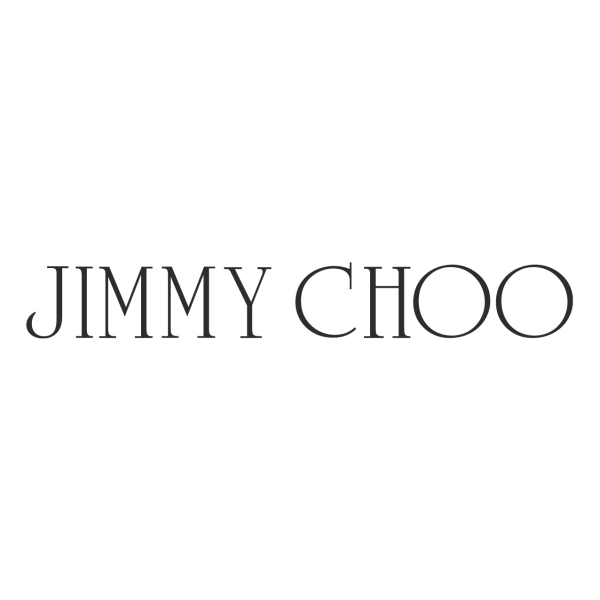
Jimmy Choo Font
ApparelJimmy Choo is a high-end fashion brand specializing in luxury shoes, handbags, and accessories. It was founded in 1996 by Malaysian designer Jimmy Choo and British Vogue editor Tamara Mellon.